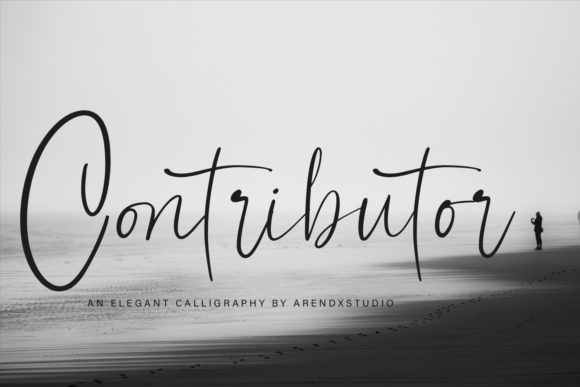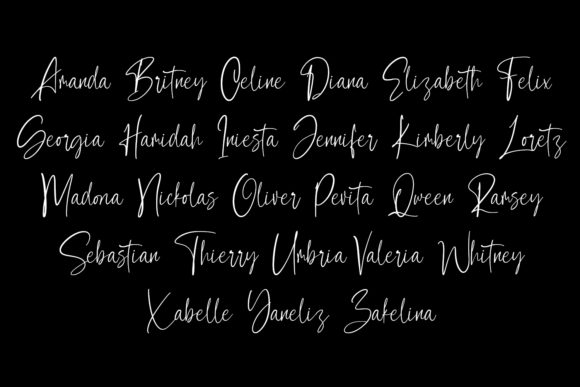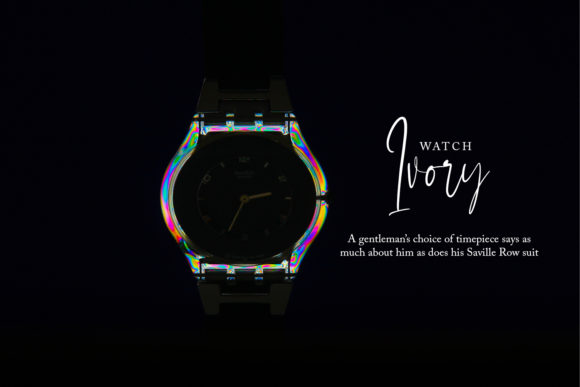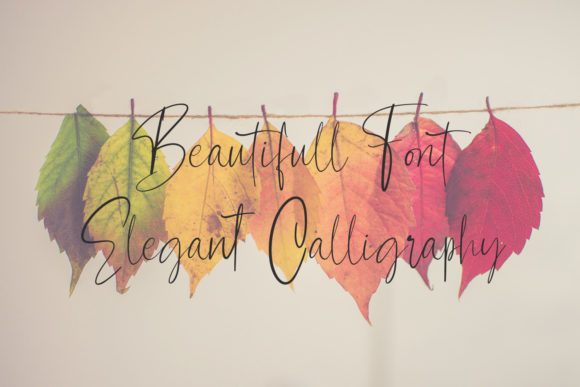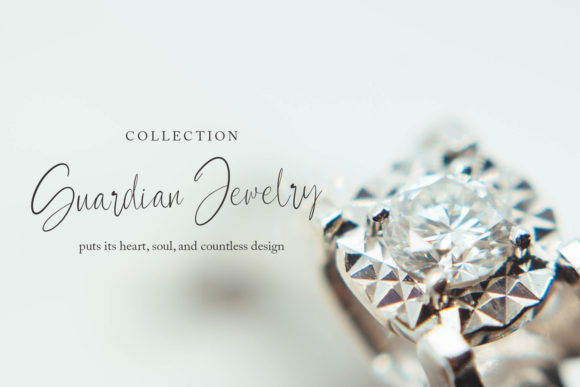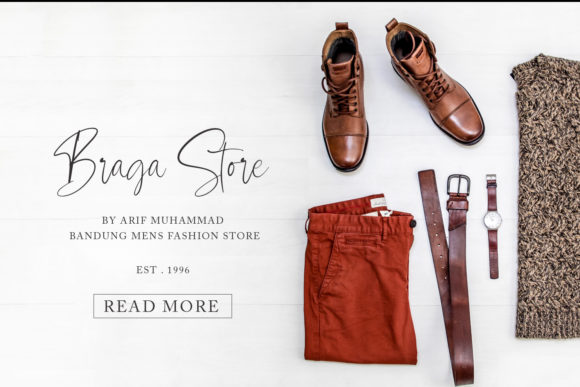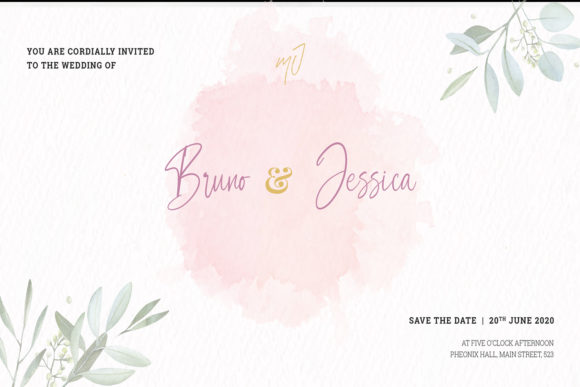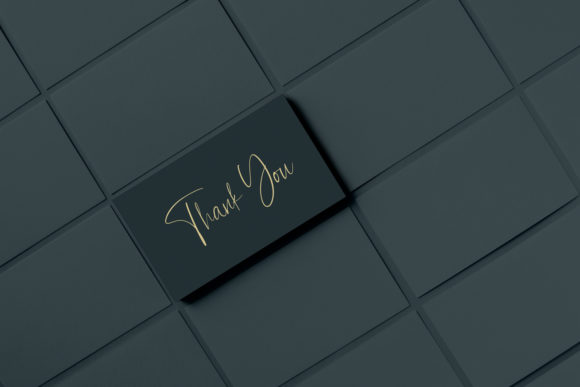
Contributor Font
About Contributor Font
Contributor is a casual, yet elegant calligraphy script that will easily add a fancy feel to your next design project. Its elegant and naturally looking letters will deliver any message with clarity and style.